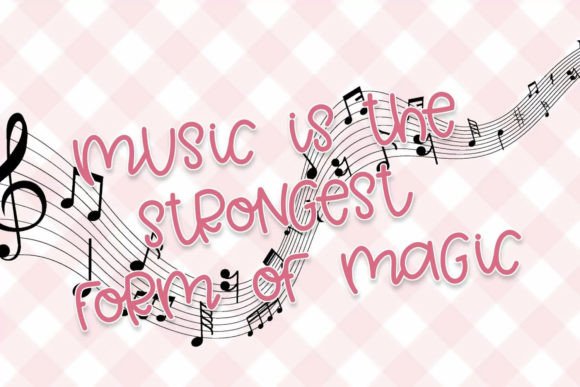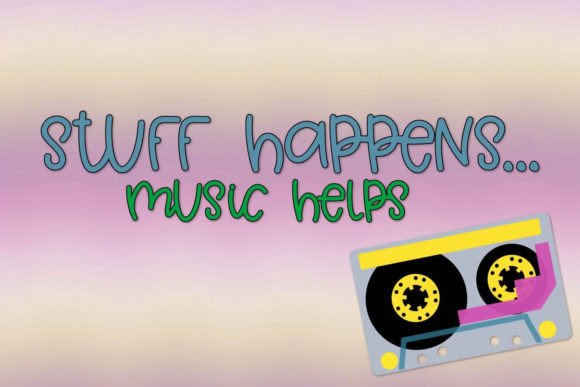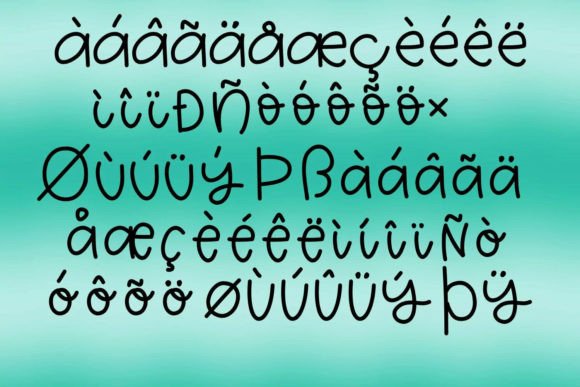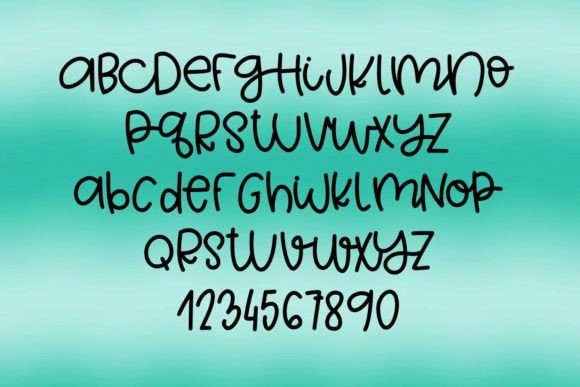
The Perfect Beat for Your Next Design Project
You know that moment when you’re brainstorming a new project, and suddenly, the ideas start flowing? The creative juices are pumping, and you can almost hear the beat of your design coming to life. That’s exactly what happens when you add the right font to your project – and for designers, the Kangaroo Music Font is a game-changer.
Kangaroo Music Font is a delightful, handwritten font that’s perfect for adding a touch of whimsy to your designs. With its fun, run-together style of lettering, this font is sure to bring a smile to your face and a spring to your step. Whether you’re creating a logo, a brochure, or a social media post, the Kangaroo Music Font will add a unique and playful touch that’s sure to stand out.
Kangaroo Music Font Key Features
- Font Size: The font is available in 4 font sizes: 24pt, 36pt, 48pt, and 60pt, catering to different music notation requirements.
- Resolution: The font is designed for high-resolution displays, making it suitable for use in digital sheet music, scores, and other music-related applications.
- Unique Characteristics: Kangaroo Music Font features a unique and playful design, with distinctive letterforms and ornaments that add a touch of whimsy to music notation.
- Character Set: The font includes a comprehensive character set, including musical symbols, staff lines, and other notation elements, making it a versatile choice for music composition and engraving.
Kangaroo Music Font Review
I’ve had the chance to work with the Kangaroo Music Font, and I must say it’s a unique and quirky addition to any music-related project. ✨ Here are some things that work well:
- It’s a great choice for music sheets, songbooks, and other music-related materials. The font’s design and layout make it perfect for displaying musical notes, lyrics, and other music-related information.
- The font is highly customizable, which is a big plus. You can easily adjust the size, color, and style to fit your project’s needs.
- The font includes a wide range of musical symbols and characters, making it a comprehensive choice for any music-related project.
- ⚠️ The font may not be suitable for large blocks of text. The design is more suited for displaying short snippets of information, rather than long paragraphs.
- ⚠️ Some users may find the font’s design a bit too playful or childish. It may not be the best choice for more formal or professional music-related projects.
Overall, the Kangaroo Music Font is a great choice for music-related projects that require a unique and engaging design. While it may have some limitations, it’s a versatile and customizable font that can add a lot of personality to your work.
For optimal results, use the Kangaroo Music Font in conjunction with other music-themed graphics and elements.
Experiment with different font sizes and styles to create visual interest and hierarchy in your design.
The Kangaroo Music Font is ideal for:
- Music posters and flyers
- Music-themed websites and social media graphics
- Music-related business logos and branding
Alternatives to Kangaroo Music Font for Designers
1. Museo Sans Music
Museo Sans Music is a clean, sans-serif font designed specifically for music notation. It’s ideal for use in music scores, songbooks, and other musical compositions where clarity and legibility are essential. Compared to Kangaroo Music Font, Museo Sans Music has a more modern and sleek design, making it a great choice for contemporary music projects.
2. Junicode
Junicode is a highly customizable font that supports a wide range of musical notation and characters. It’s a great choice for designers who need a high degree of control over the font’s appearance and behavior. Compared to Kangaroo Music Font, Junicode has a more robust feature set and is highly customizable, making it a great choice for complex music projects.
What is the recommended font size for using Kangaroo Music Font?
The recommended font size for Kangaroo Music Font is between 12pt and 24pt. This range provides optimal readability and visual appeal for most design applications. However, feel free to experiment with different font sizes to achieve the desired look and feel for your project.